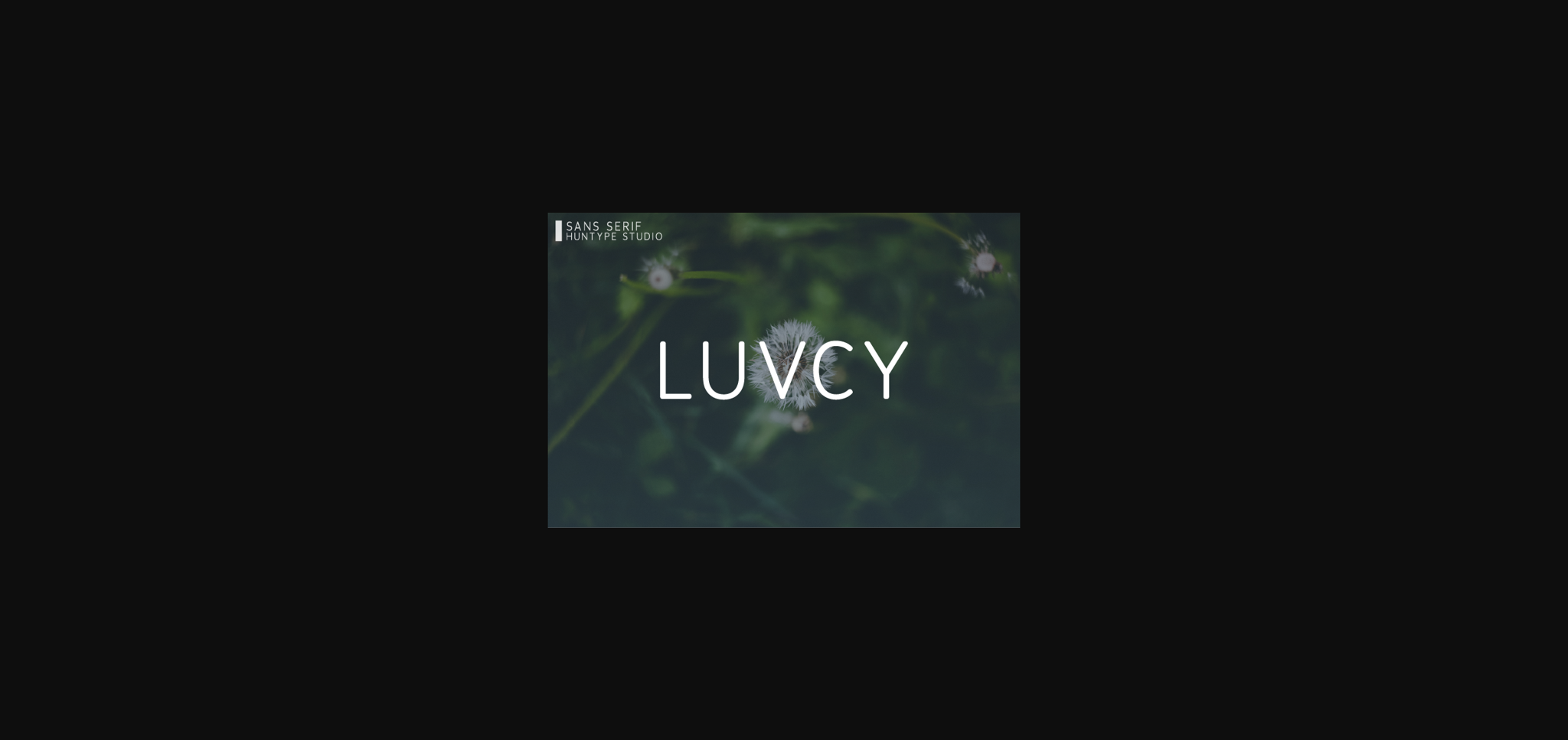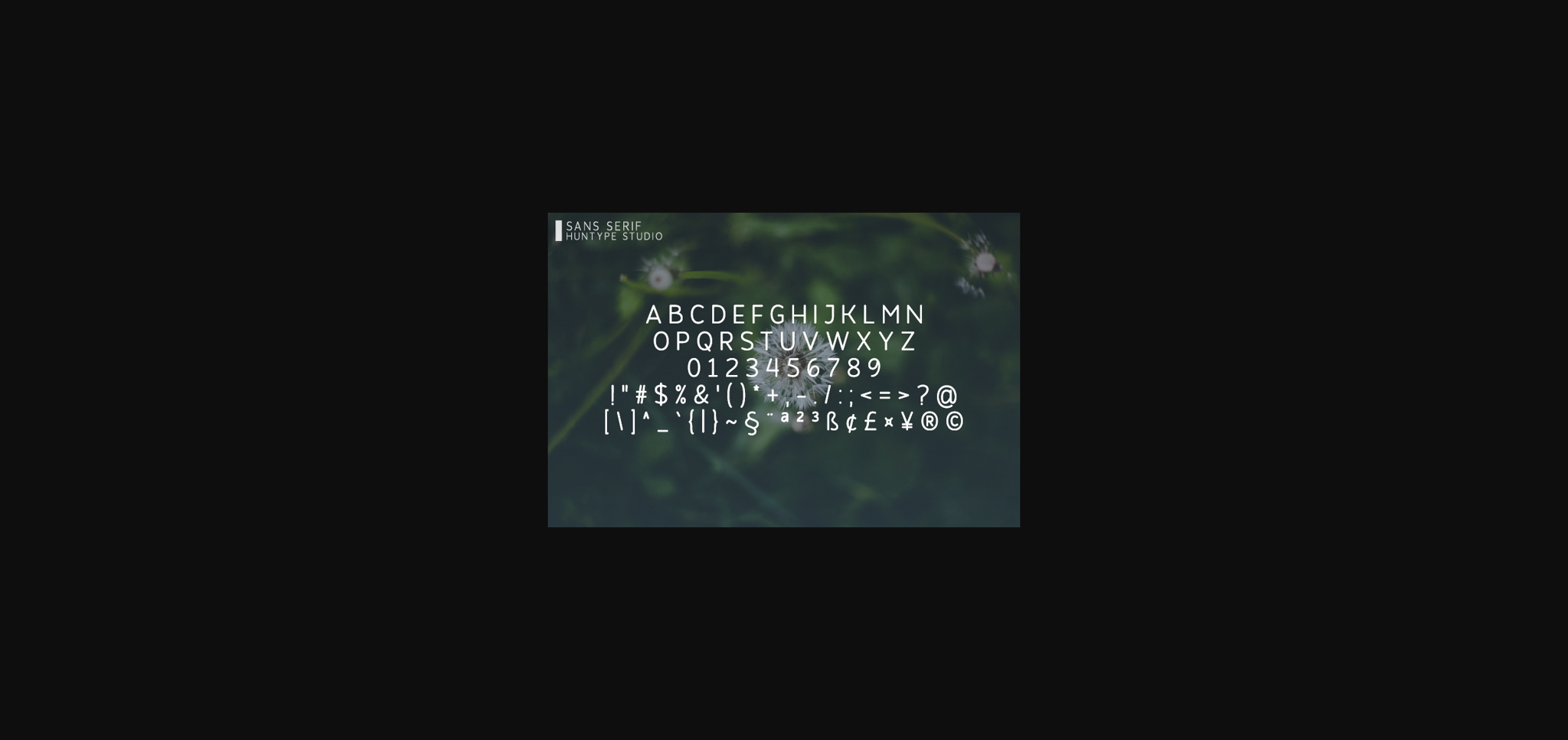
About Luvcy Font
Luvcy is a fancy sans serif font. It features extended characters that will look particularly adept when used in logos, branding, packaging design, and much more. This masterfully designed font is a true must-have.